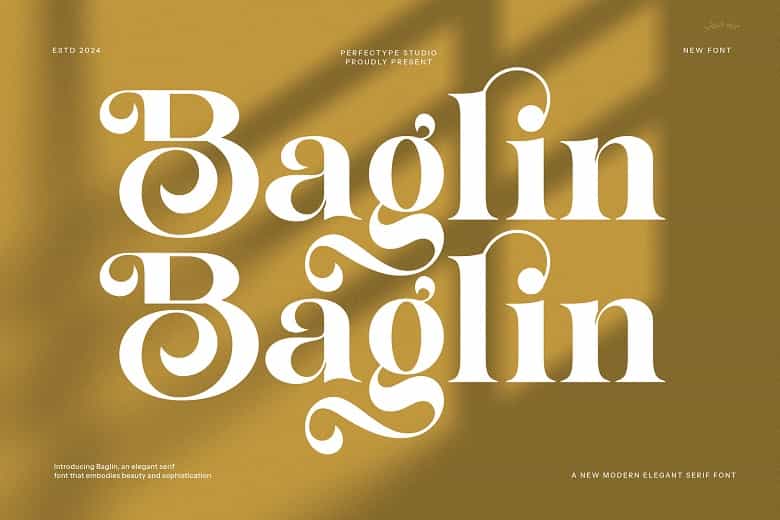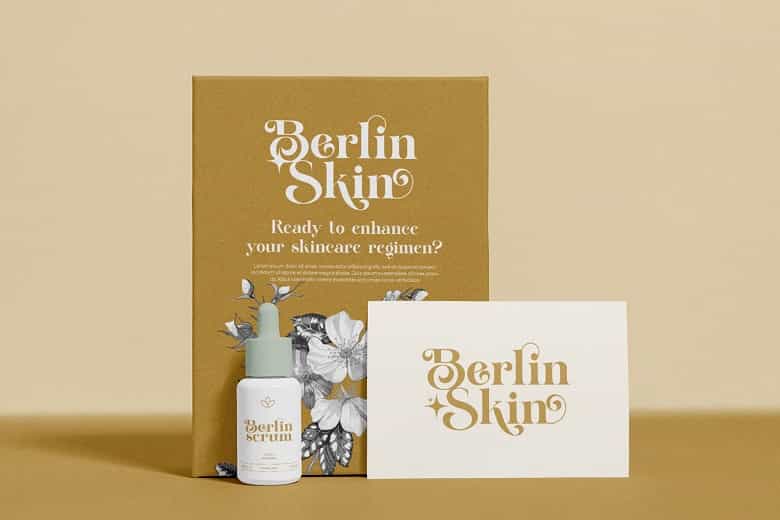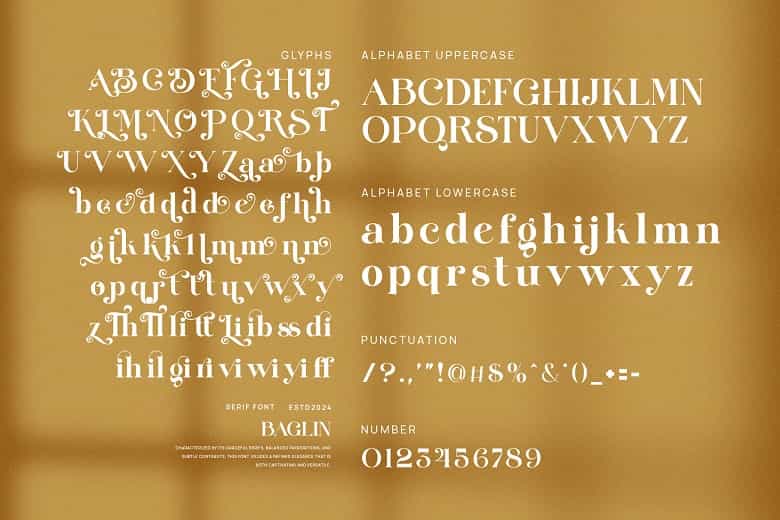
Baglin is an elegant serif font which is designed with sophistication therefore suitable for all your design requirements. There is a wide range of excellent and interesting ligature and alternate characters in this font. This type of font is ideal for a number of your projects including the branding projects, logos, social media posts, ads, labels, wedding designs, invitation product designs, stationery and any other project that is expensive. readability level.